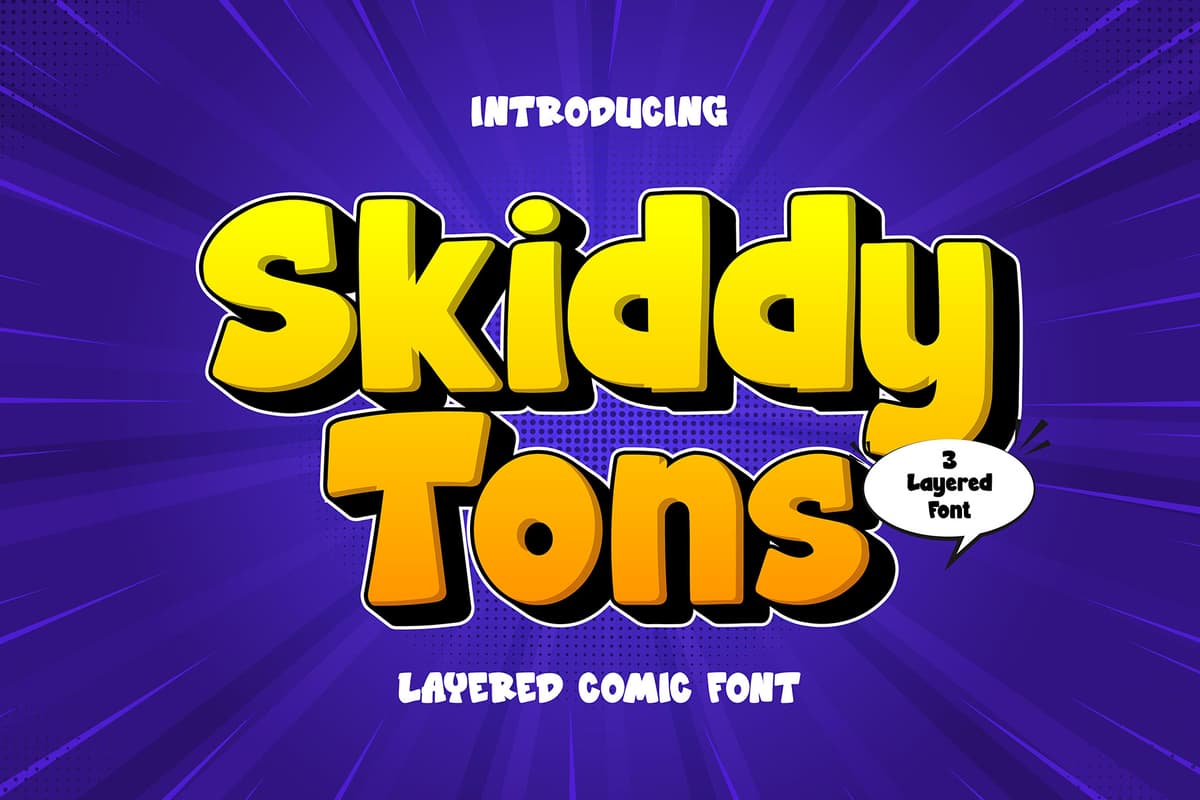
Skiddy Tons
Introducing Skiddy Toons – the Layered Comic Font that brings a vibrant and playful energy to your designs. Perfect for projects that need a fun and dynamic touch, Skiddy Toons offers a versatile and engaging aesthetic that captures attention and adds a whimsical charm.